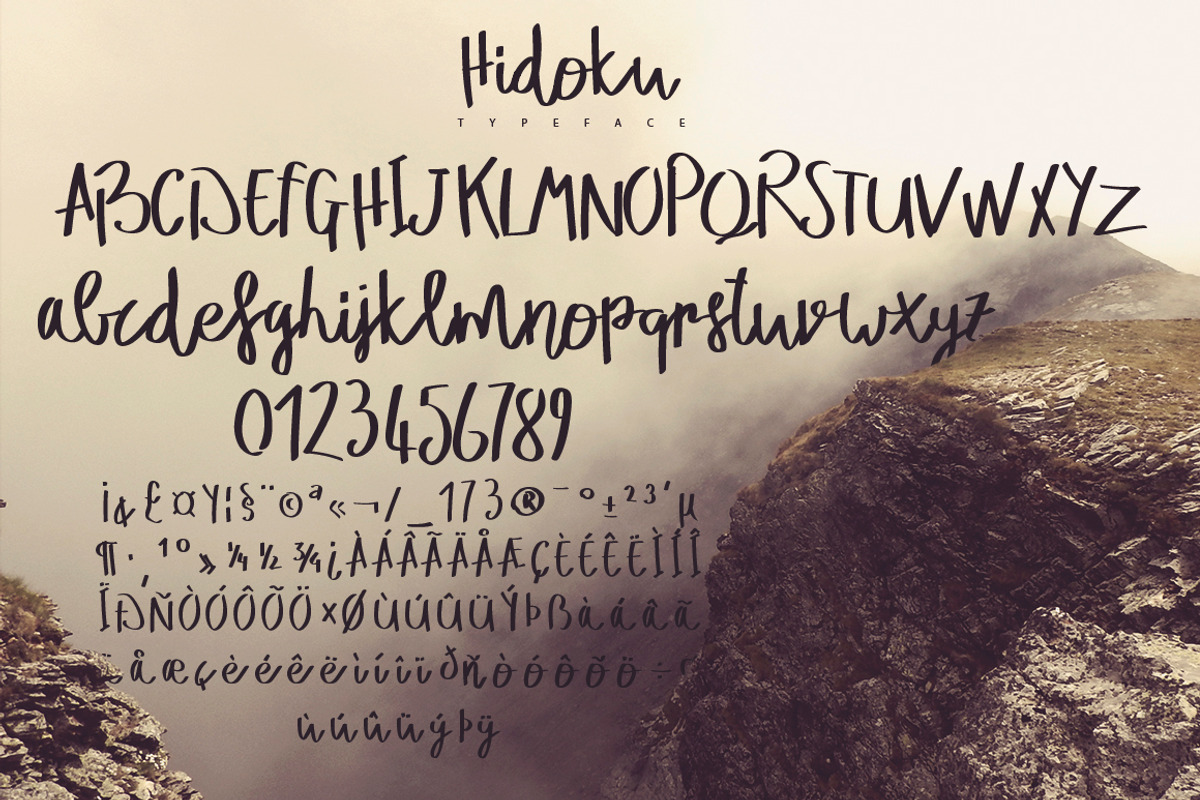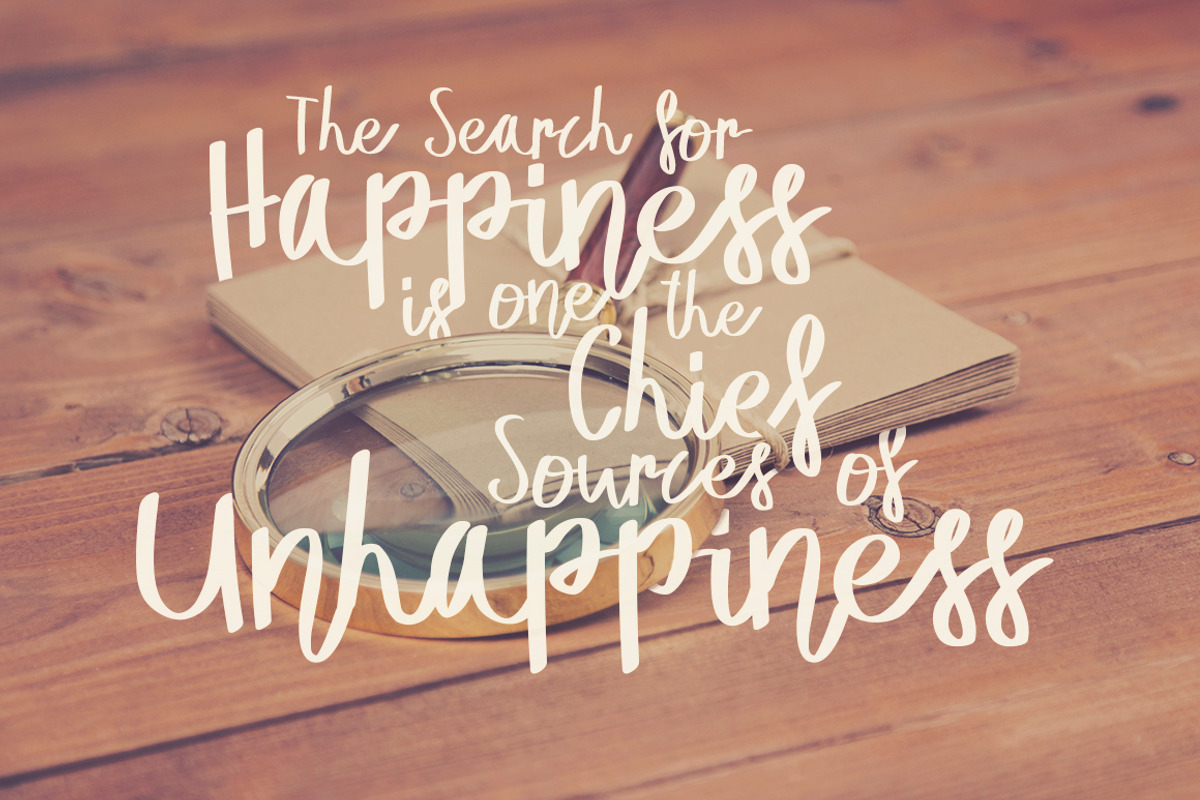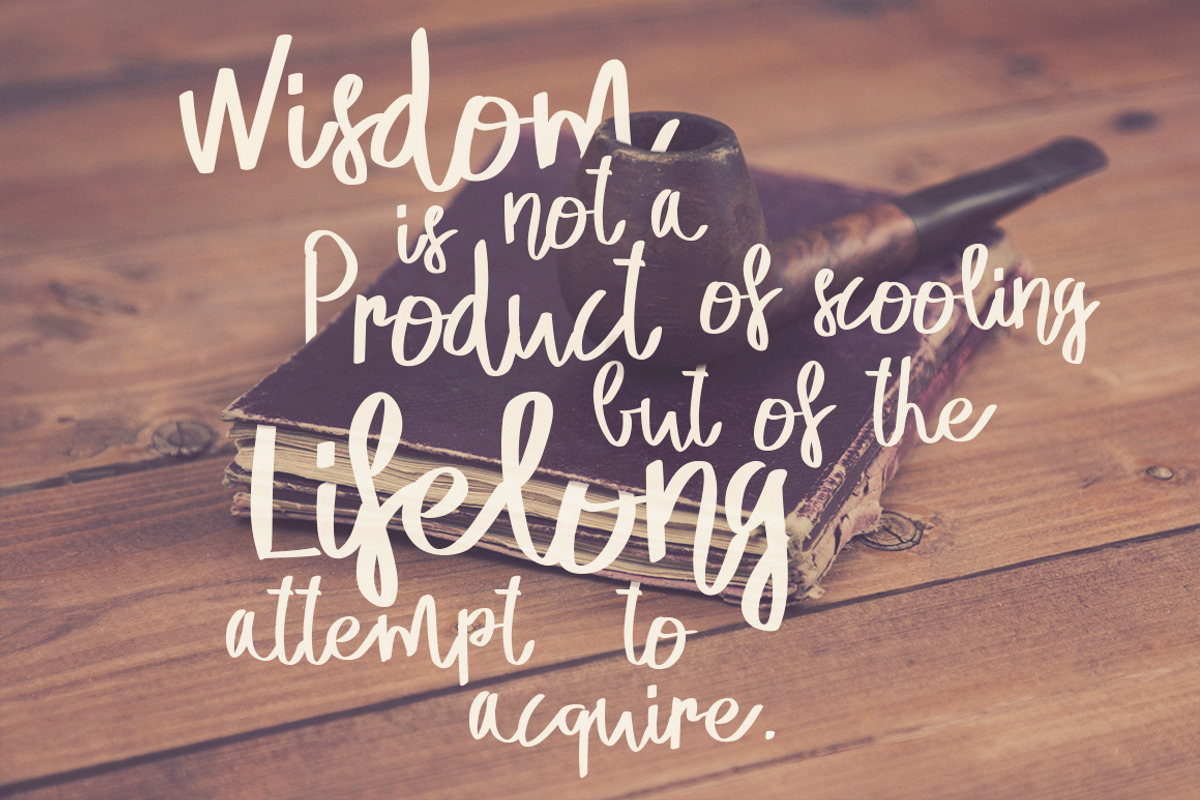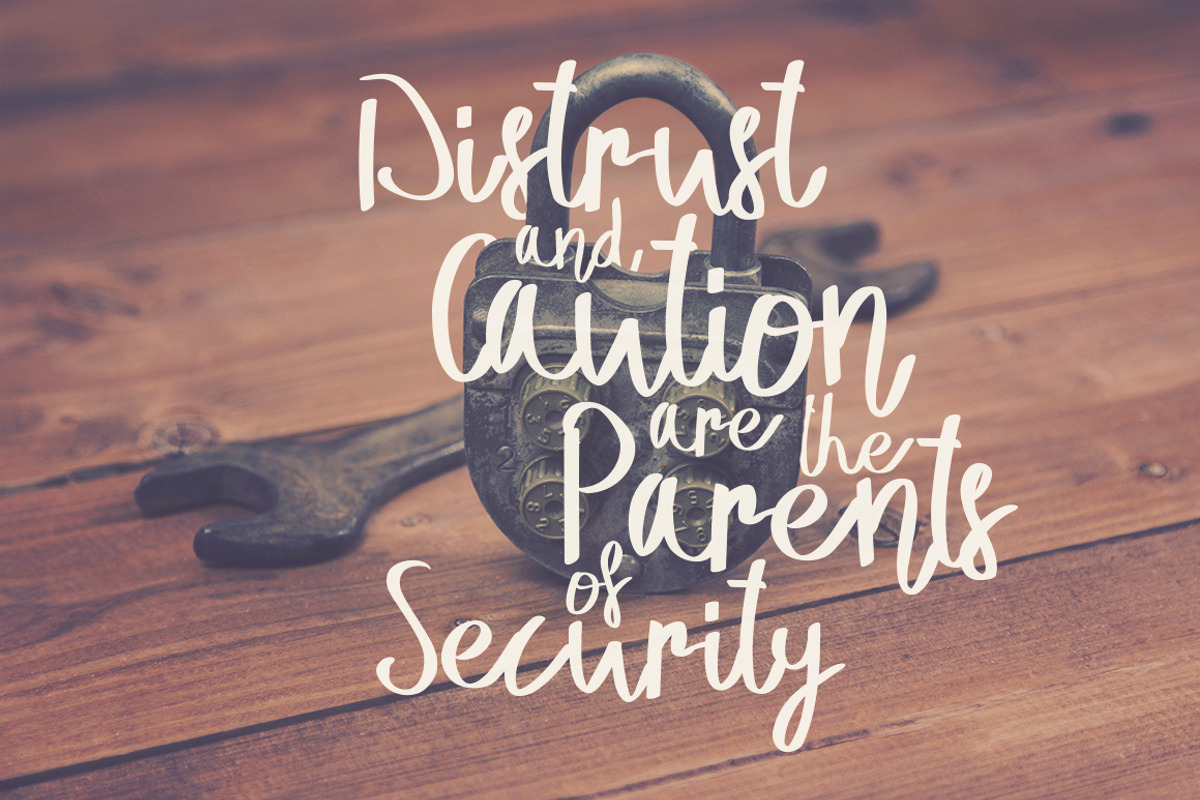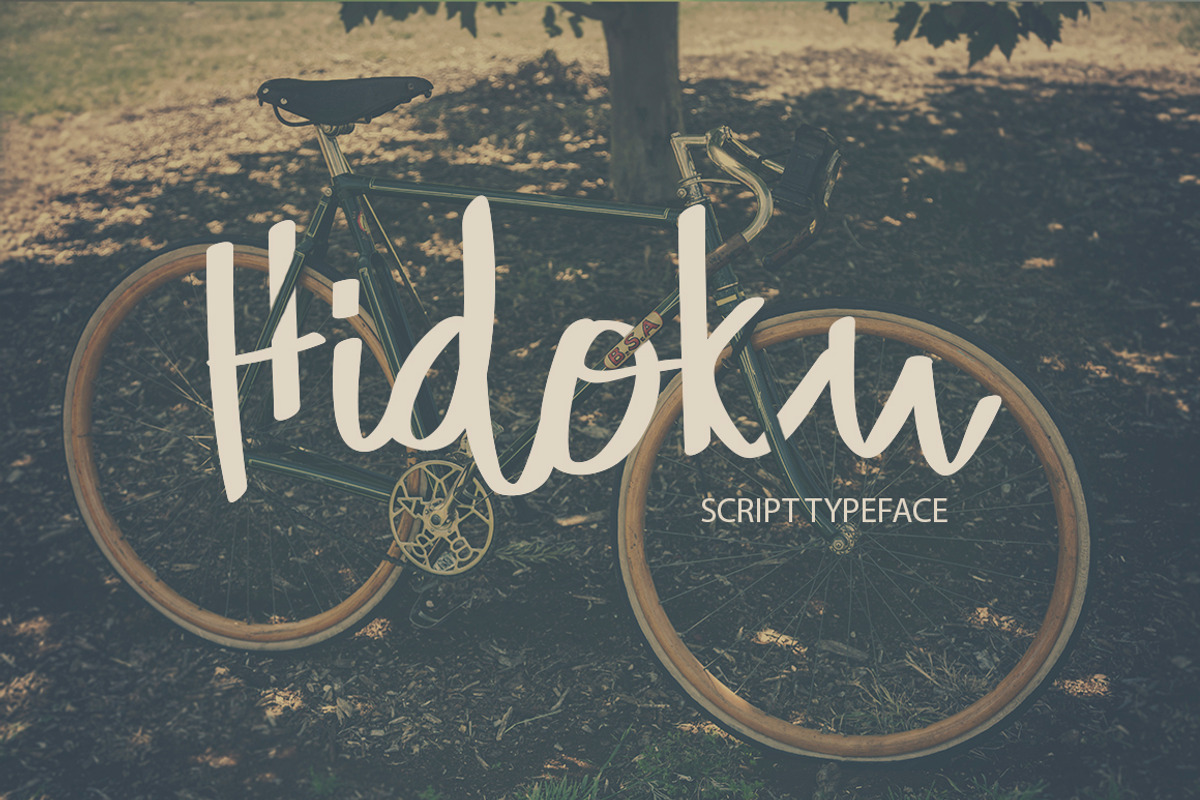
Hidoku Script Typeface
Hidoku Script Typeface by MoonfishStudio is a font selected for branding, posters, packaging, typography.
Why Hidoku Script Typeface is worth a look
Hidoku Script Typeface by MoonfishStudio fits naturally into Branding, posters, packaging, typography.